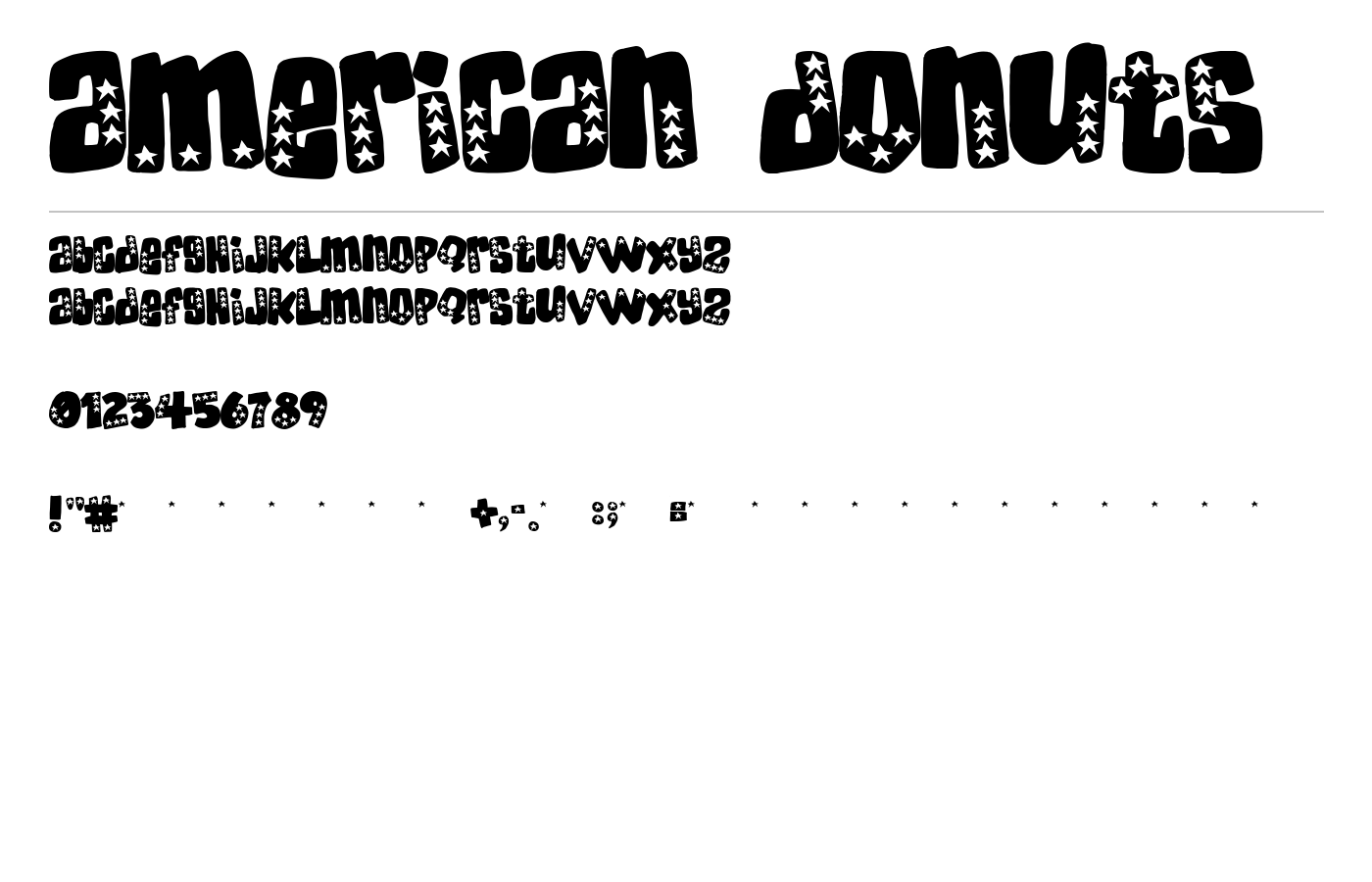
American Donuts is a bold, playful display font characterized by its chunky, irregular letterforms filled with cheerful star patterns, evoking a fun and quirky spirit. Its casual, hand-drawn style and strong personality make it perfect for eye-catching headlines, logos, and designs aimed at a youthful or festive audience. This font works especially well in entertainment, party invitations, and branding where a lively, energetic vibe is desired.
American Donuts Font
About American Donuts Font
| Font family | American Donuts Font |
| Designer | Pizza Dude |